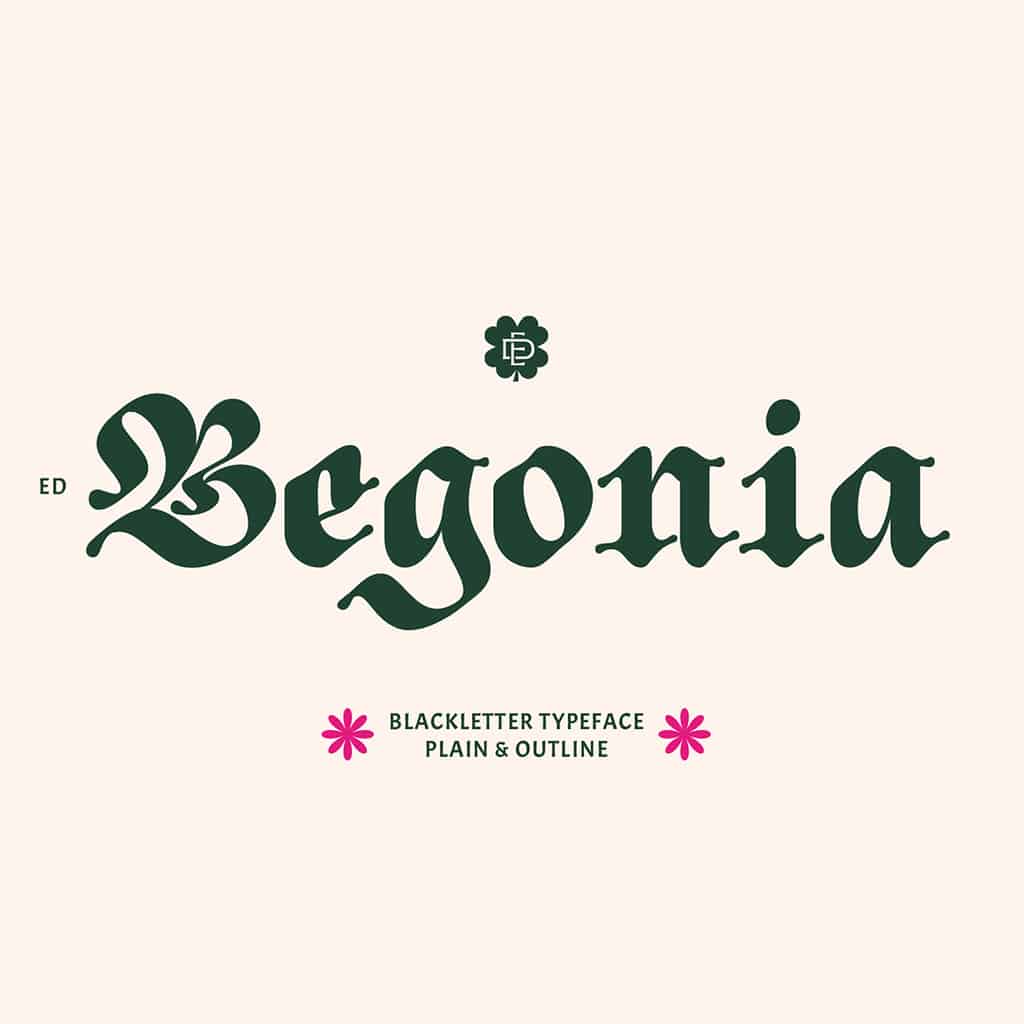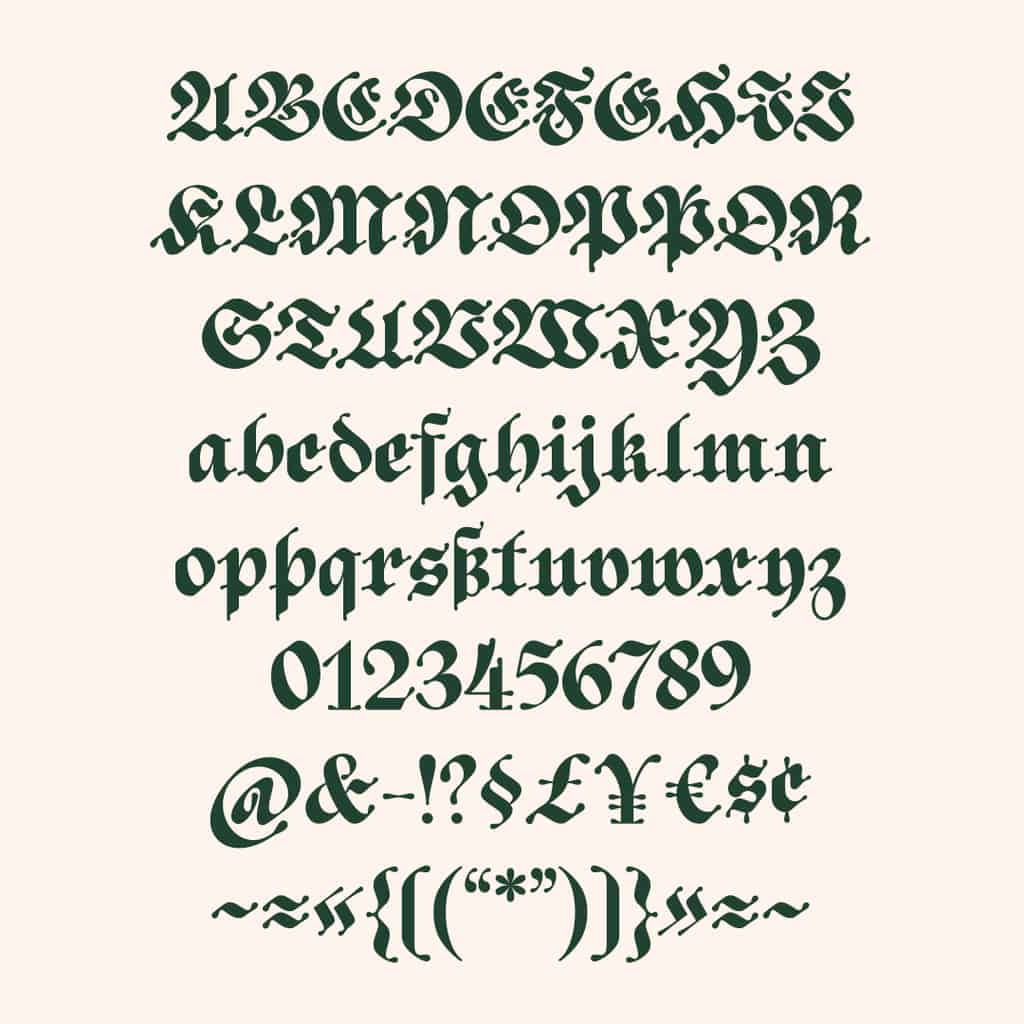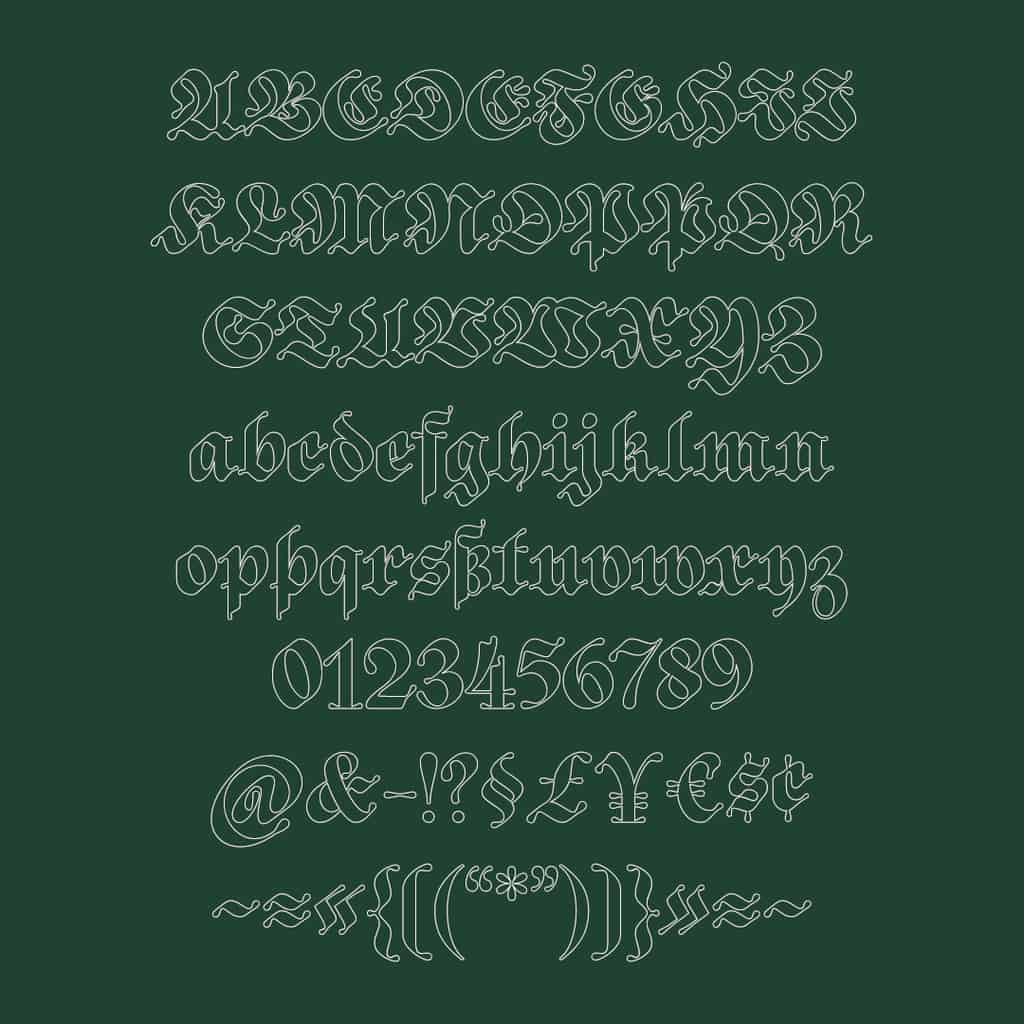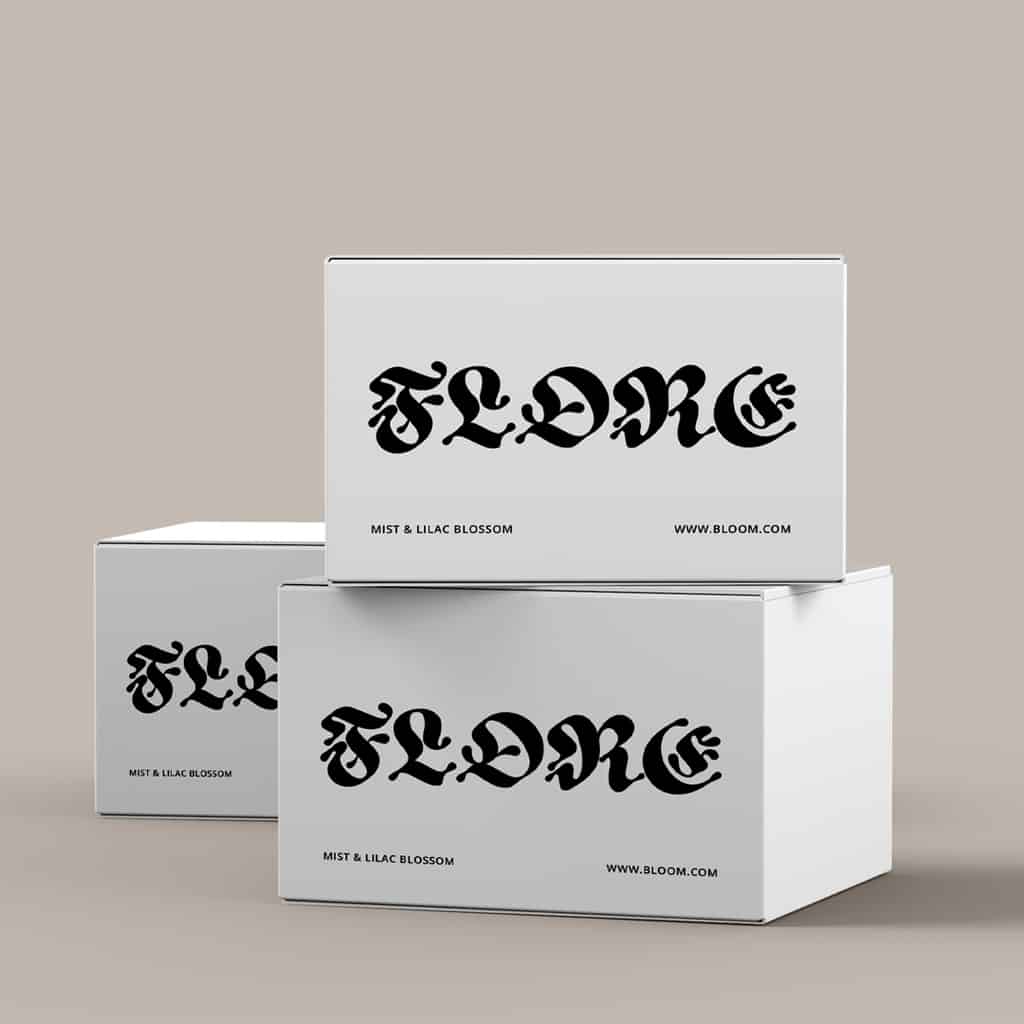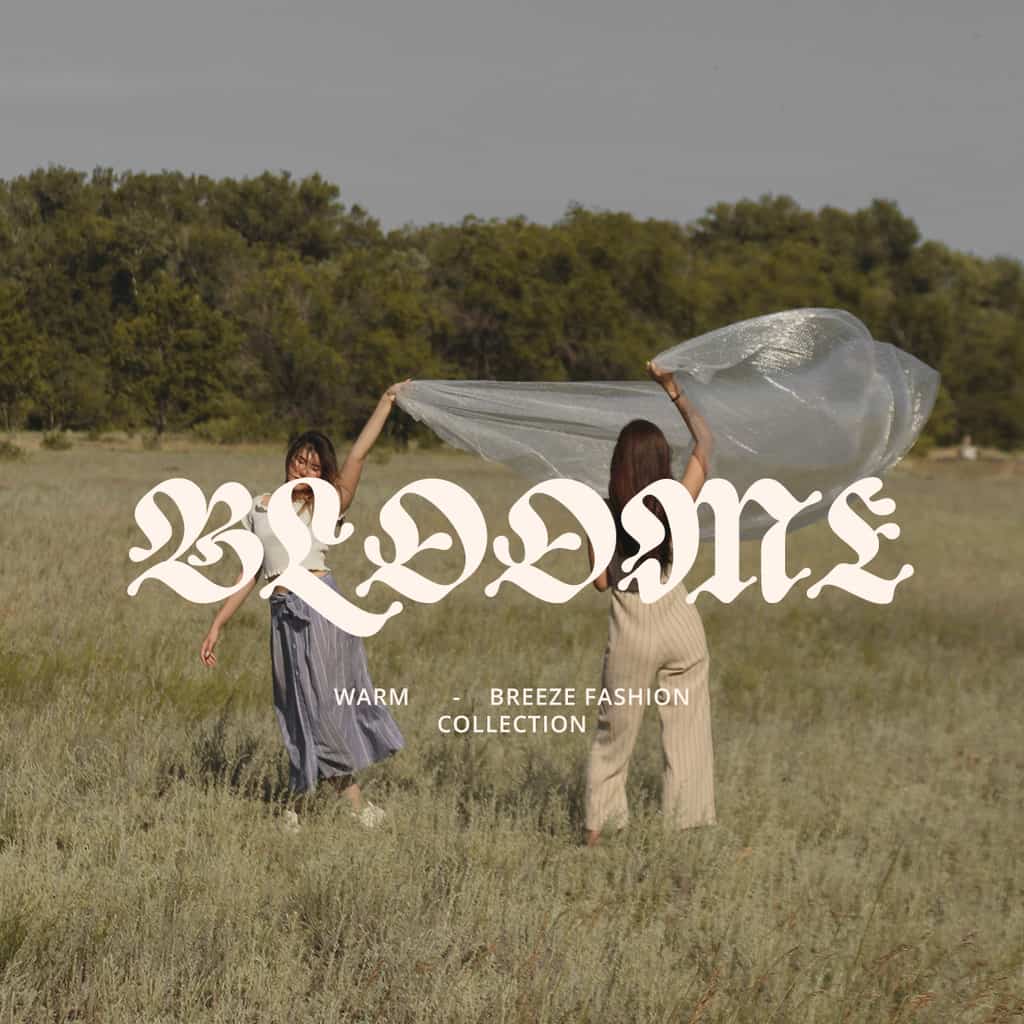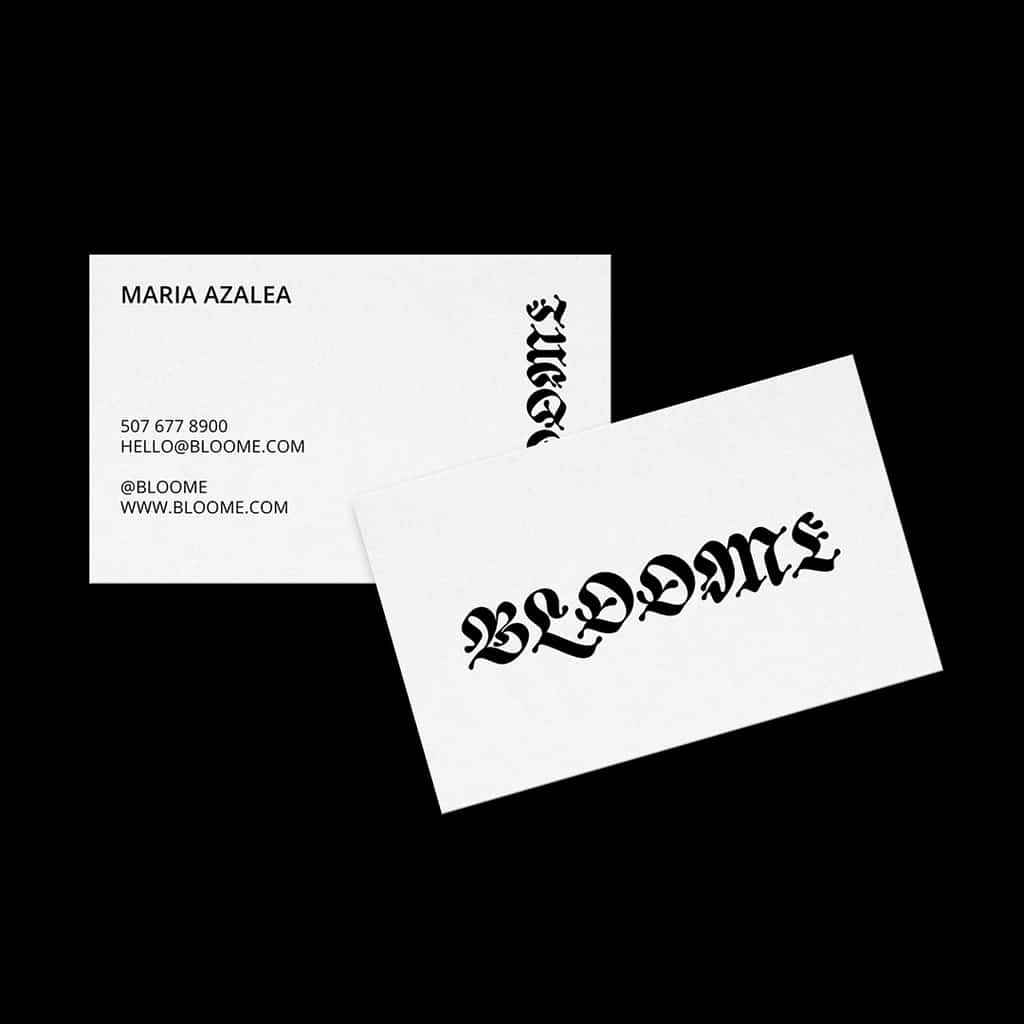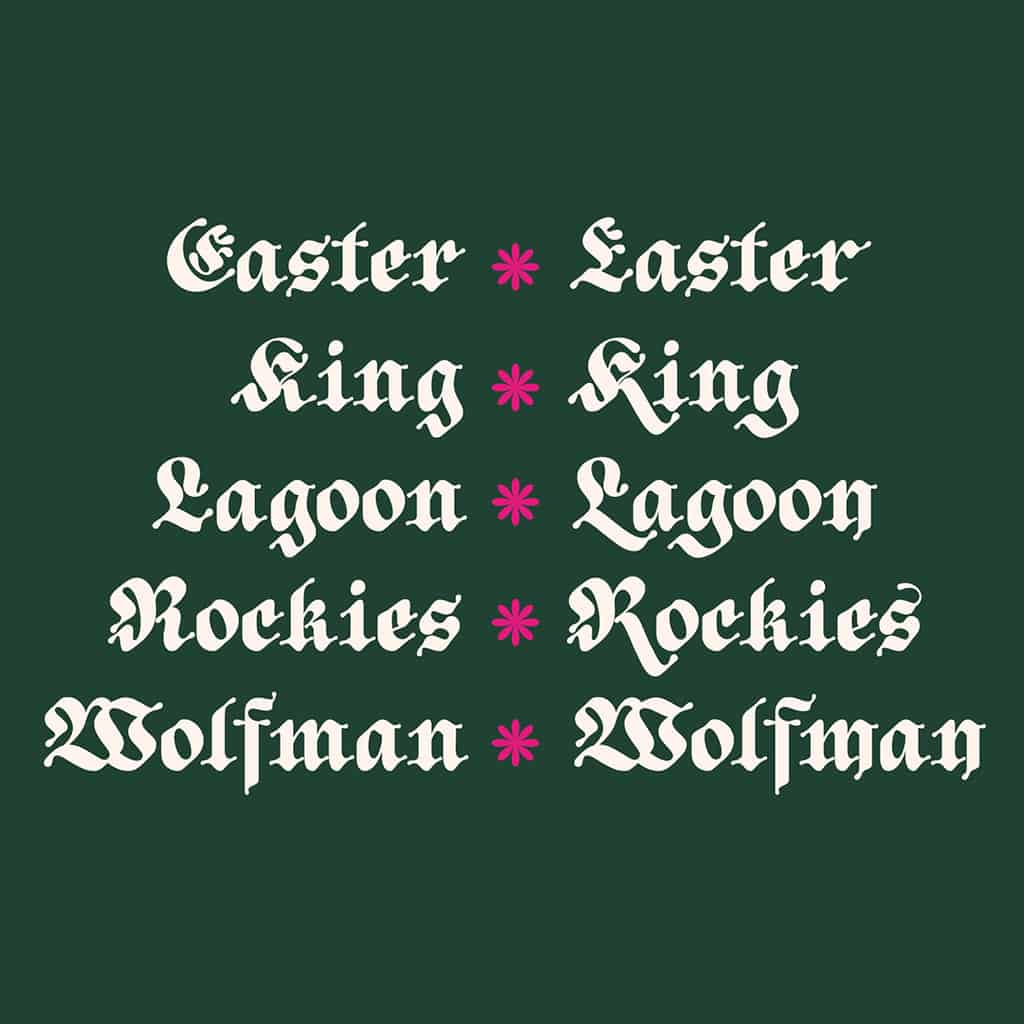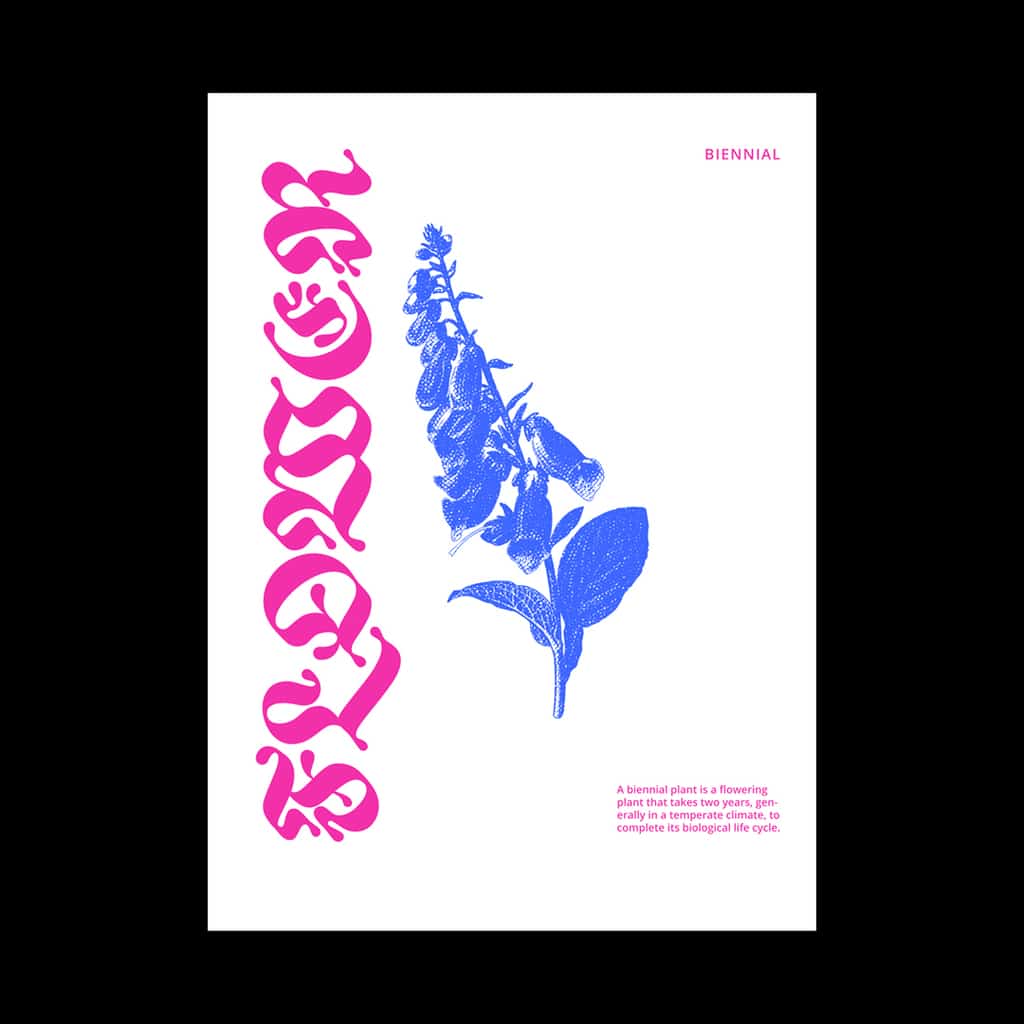
ED Begonia
ED Begonia is a contemporary blackletter font infused with a groovy, modern style featuring curves inspired by flower petals. This playful yet sophisticated font boasts several OpenType features including ligatures, alternative characters, stylistic sets, and multi-language support.
With two styles—plain and outline—ED Begonia offers versatility to meet various design requirements. Add a touch of whimsy and elegance to your projects with ED Begonia, where tradition meets modern flair in typography.